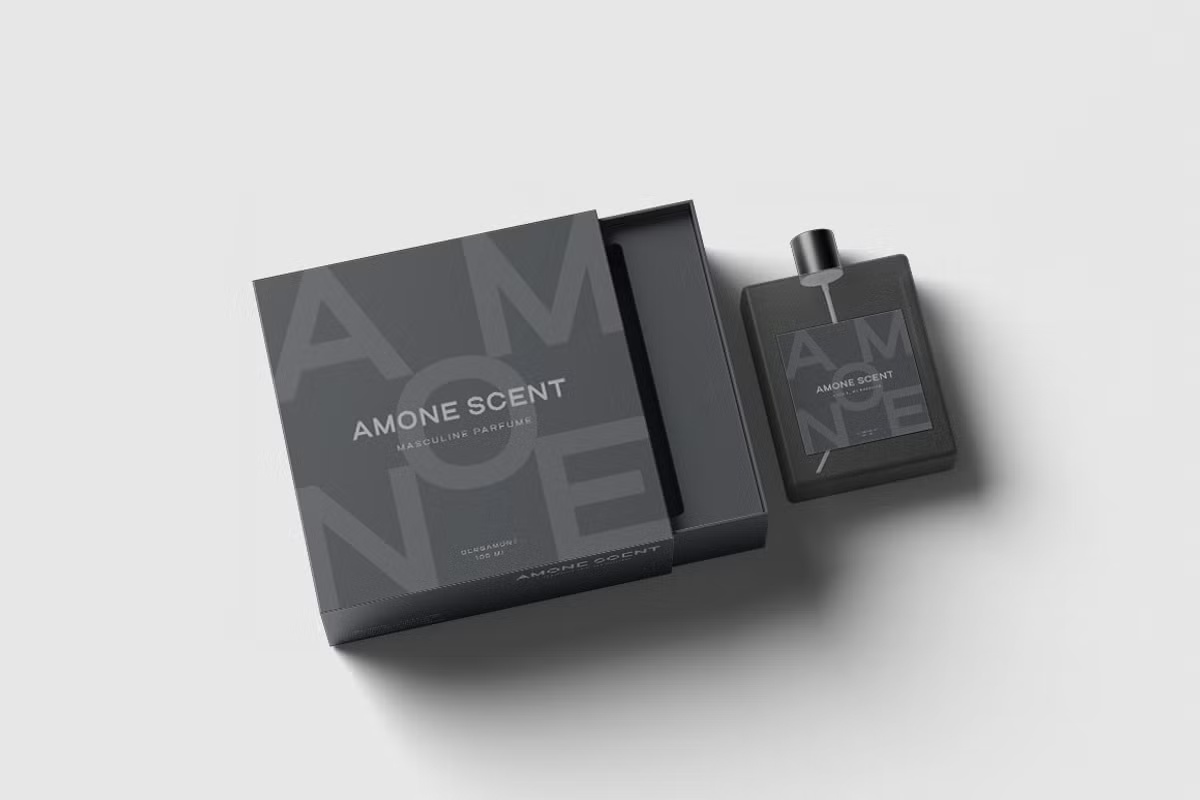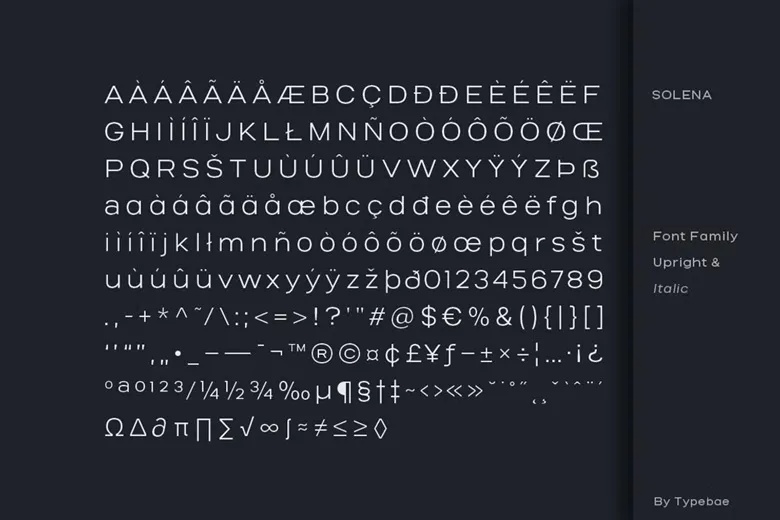
Salena Font
Salena is a modern sans serif font family designed for elegance and clarity. With clean lines and a refined structure, it’s perfect for logotypes, branding, headlines, and editorial work. Salena combines timeless sophistication with excellent legibility, making it a versatile choice for designers seeking a sleek and stylish typographic solution.
Salena Sans Serif Font